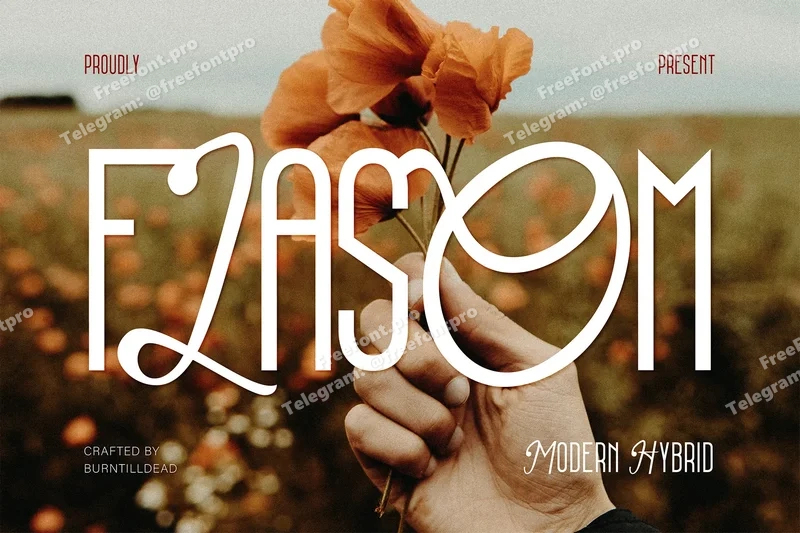
Flasom
ay hello to Flasom, a modern hybrid with elegance touch. Flasom combines sans serif and script with beautiful harmony. This font works well for both elegant and playful design. With the ligatures adds a touch of sophistication and uniqueness also the alternates provides flexibility and options. Include with multilingual support make it suitable for international projects. Ideal for branding, logo design, invitation, packaging design, editorial design, poster and social media graphics